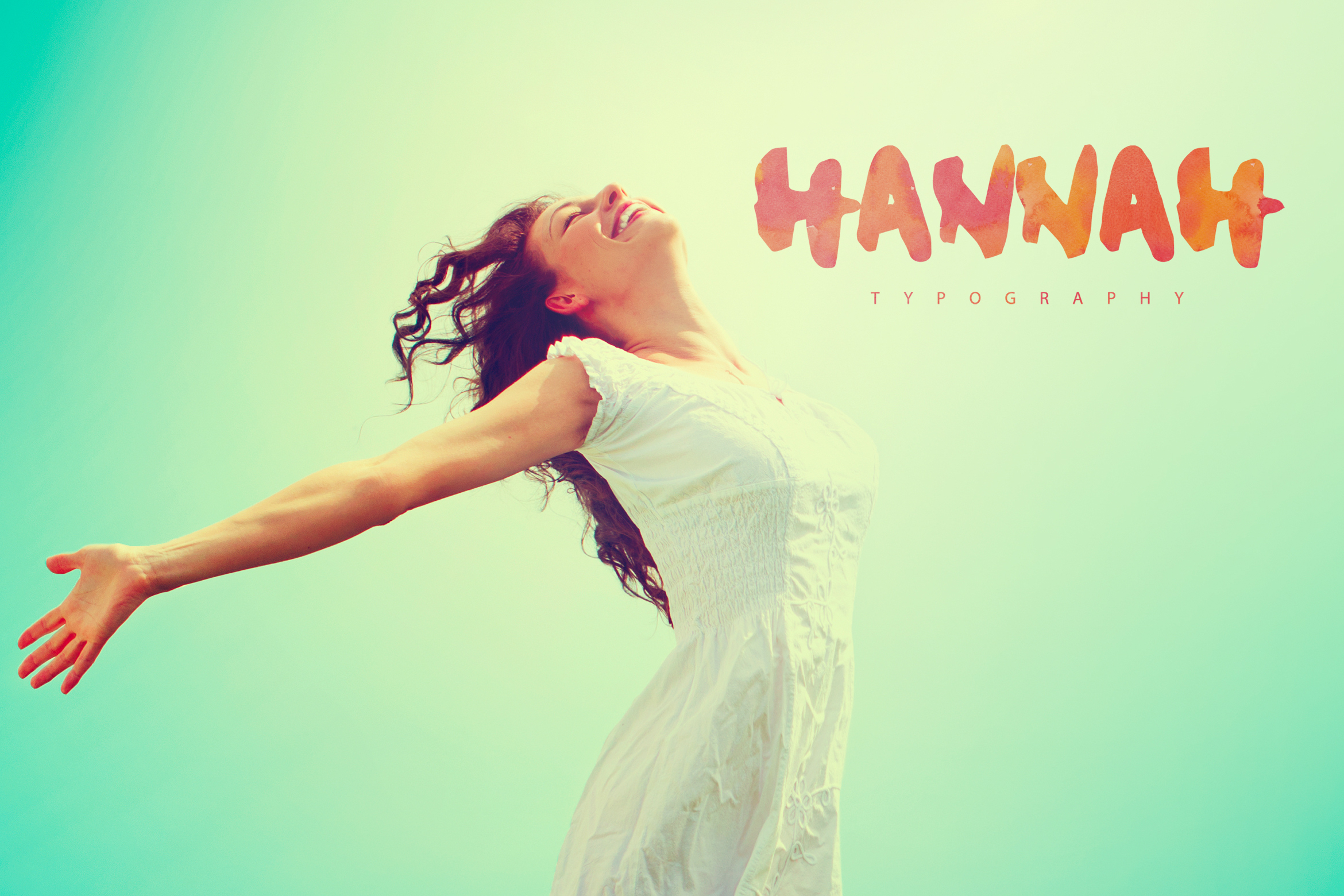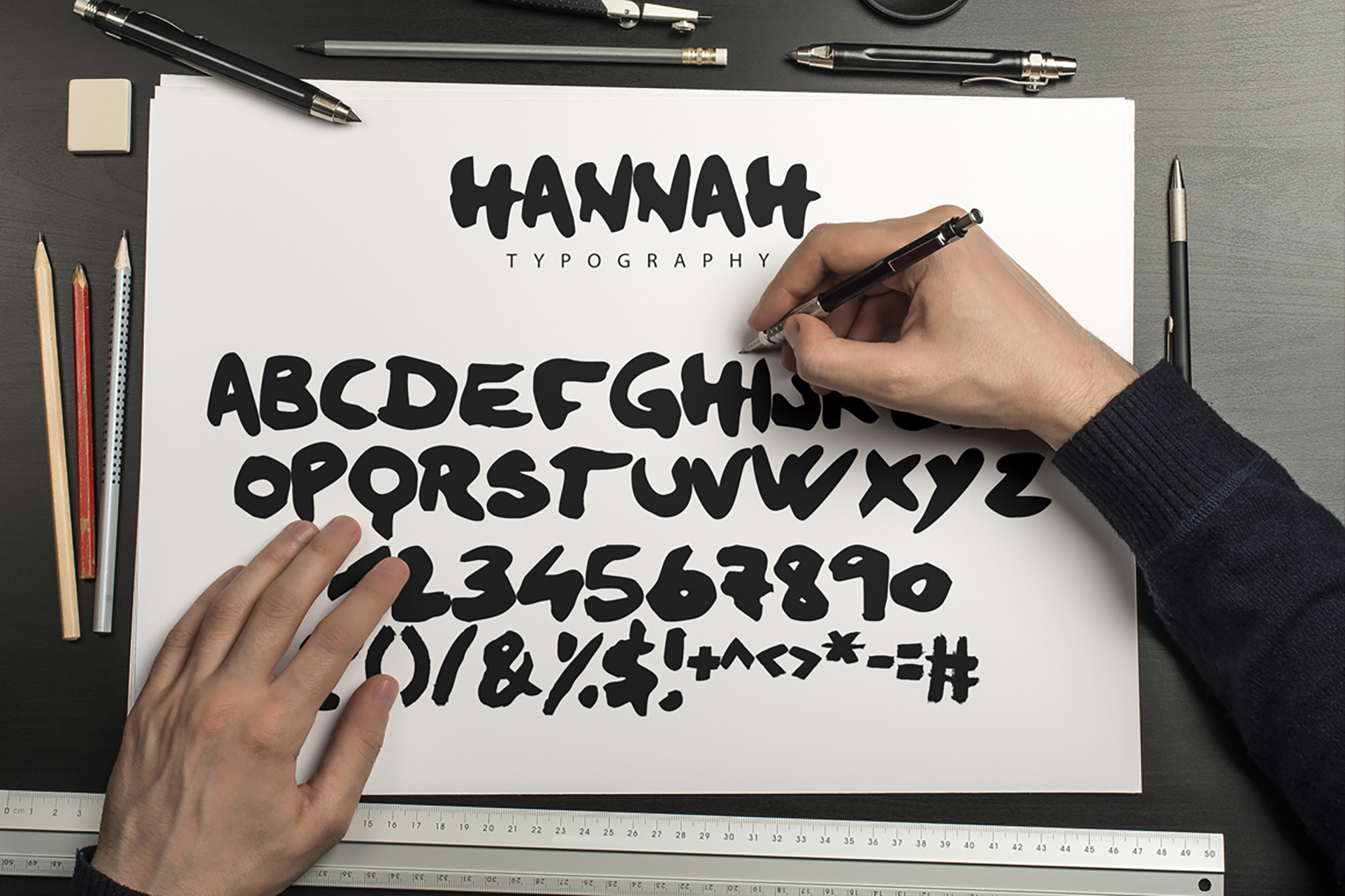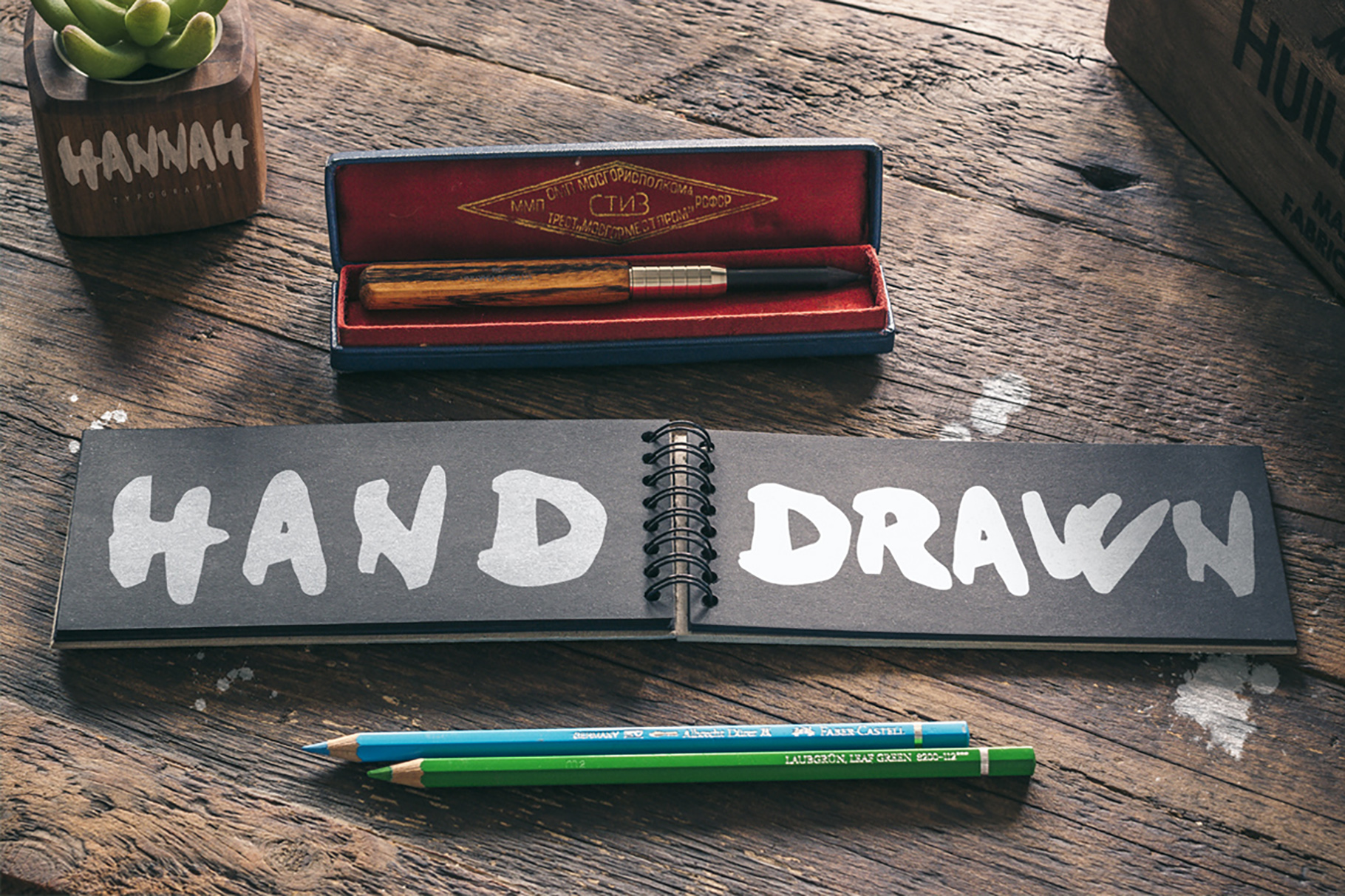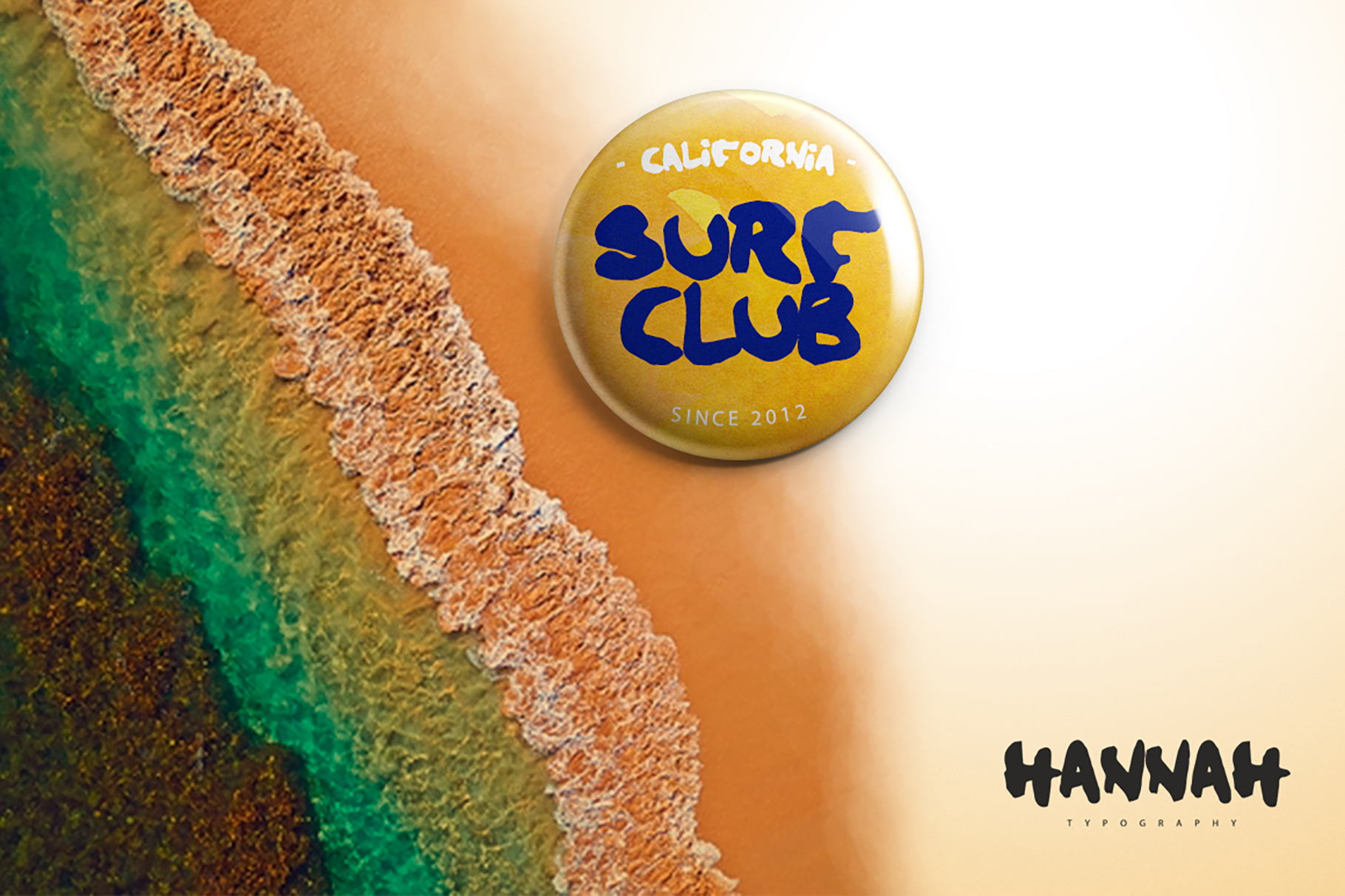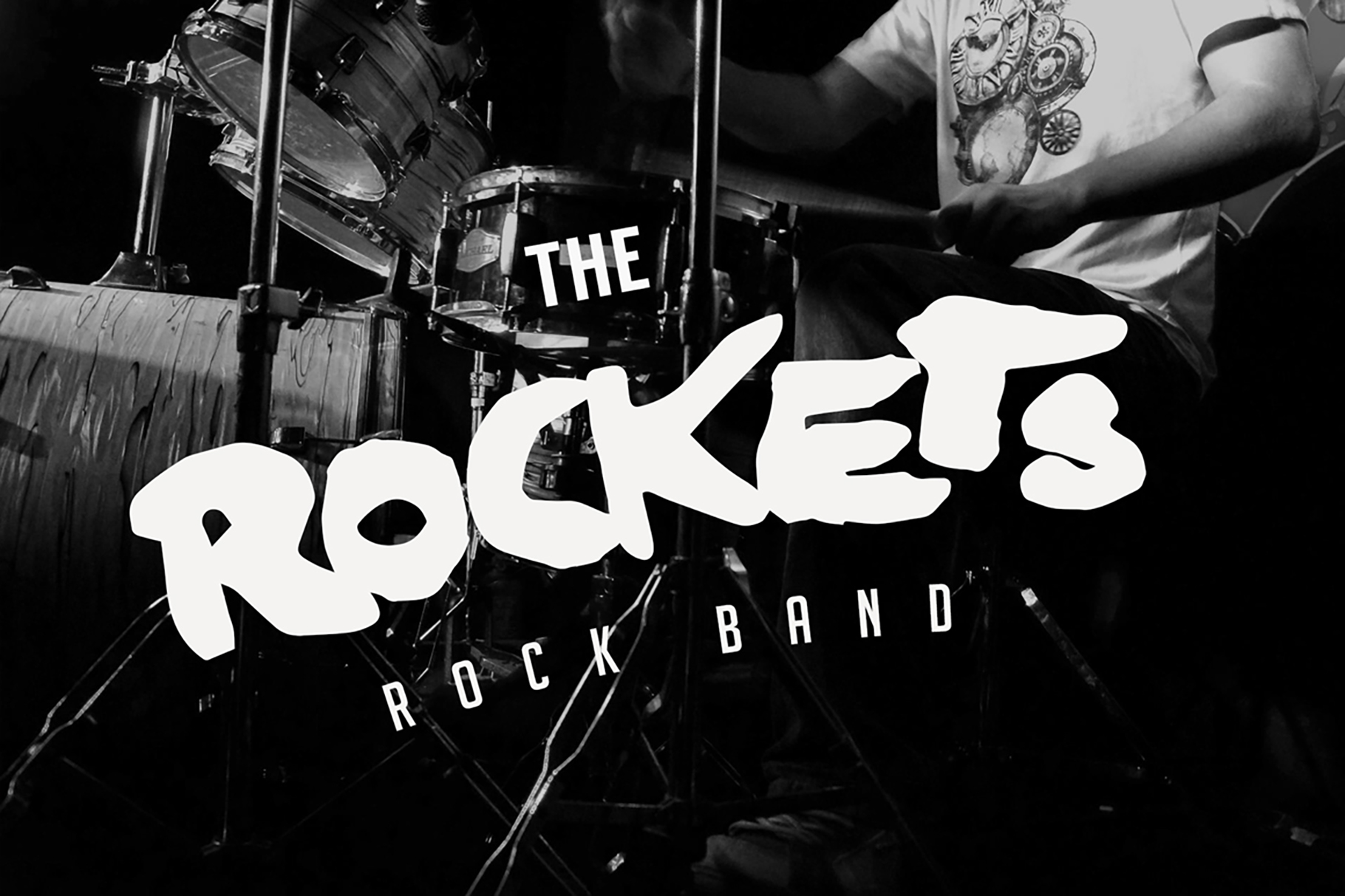
Hannah is a handmade brush font. It’s perfect for headlines on paper, paints or walls what you want a handmade effect.
All Uppercase. All letters. All numbers.